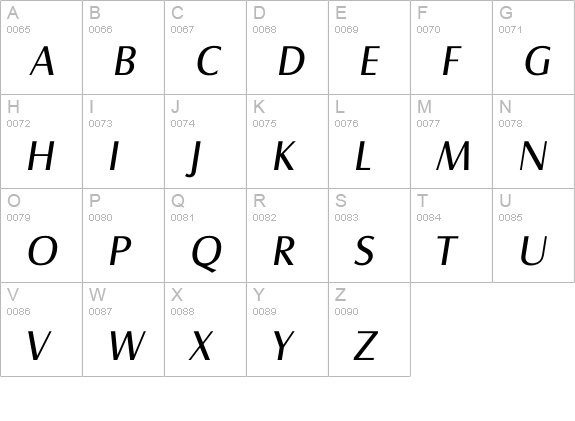
Isalzburg Regular is the standard, neutral variant in the Isalzburg typeface family \xE2\x80\x94 well suited to general body text, paragraphs, and standard typographic work.
Isalzburg Regular font is a stunning and versatile typeface that will bring elegance and sophistication to any design project. With its clean lines and balanced proportions, this font is perfect for both display and body text. The Isalzburg Regular font offers a wide range of weights and styles, allowing you to create beautiful typographic compositions with ease. Whether you're designing a logo, a website, or a poster, this font will make your text stand out and capture the attention of your audience. One of the best things about Isalzburg Regular font is that it is free! Yes, you read that right. You can freely download this font at FontsMarket.com, a trusted source for high-quality fonts. This means that you can use Isalzburg Regular in your personal and commercial projects without any restrictions. So why wait? Take advantage of this amazing opportunity and download Isalzburg Regular font today. Elevate your designs and make a lasting impression with this timeless and elegant typeface. Get creative and let Isalzburg Regular font be your secret weapon for stunning typography.